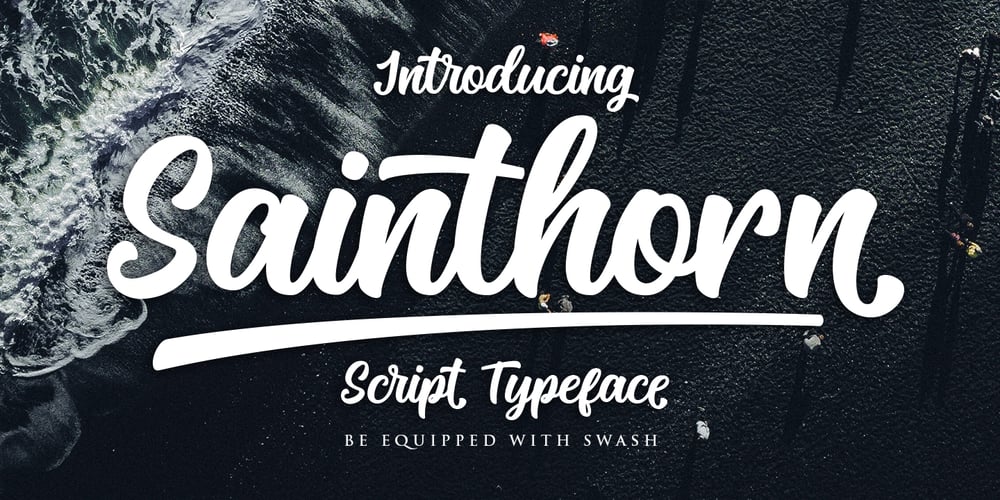
Sainthorn
Sainthorn font
Sainthorn Font Family was designed by Lukmanul Khikmatullah and published by Maculinc. Sainthorn contains 2 styles and family package options. Sainthorn Script is a typeface thick and easy to read, it would be so comfortable to wear .You can use it as a logo, badge, headline, and on insignia, packaging, posters, t-shirts/apparel, greeting cards, business cards, wedding invitations and more. The flowing characters are ideal to make an attractive messages to your taste. Mix and match with many alternative characters to fit your project.It will be more interesting if you add swash / alternative swash. The alternative characters in this font were divided into several OpenType features such as Stylistic Alternates, Ligature and Ligature Alternates. Mail support : maculinc@gmail.com Thank you! Maculinc